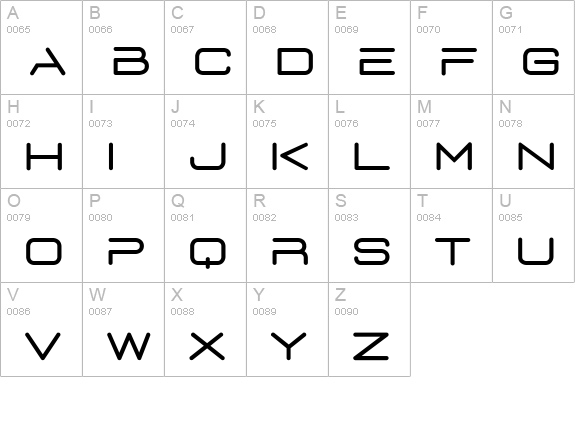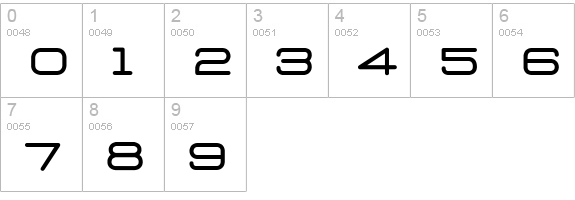
D3 Euronism Font Details
Introducing D3 Euronism, a stunning and versatile font that boasts a captivating blend of modernity and elegance. This typeface exudes a sense of sophistication, making it perfect for a wide range of design projects. From branding and advertising to website headers and social media graphics, D3 Euronism effortlessly brings a touch of class to any creative endeavor. Featuring sleek lines and unique letterforms, D3 Euronism stands out from the crowd, making a bold statement with its distinct style. Its clean and crisp appearance ensures legibility, even at smaller sizes, while its attention to detail adds a refined touch to each character. But what truly sets D3 Euronism apart is its remarkable combination of beauty and accessibility. This font is not only visually captivating, but it is also freely available to download at FontsMarket.com. Yes, you read that right – this exceptional font can be yours without spending a dime. With its generous availability, D3 Euronism opens up a world of possibilities for designers, allowing them to enhance their creations with a premium font, all without breaking the bank. Whether you're a professional designer or a creative enthusiast, this free font is a valuable addition to your toolkit. So, why wait? Dive into the world of D3 Euronism and discover the limitless potential it offers. Download this remarkable font today at FontsMarket.com and elevate your designs to new heights. Embrace the beauty of D3 Euronism and let your creativity soar.